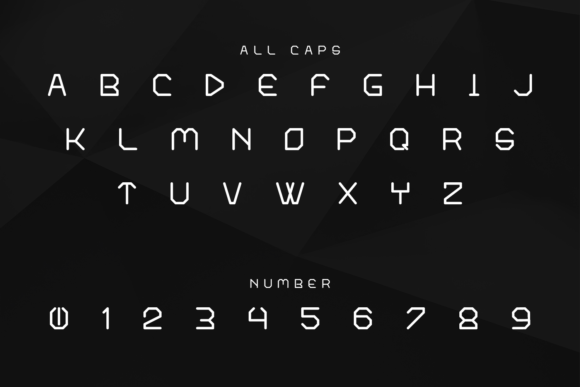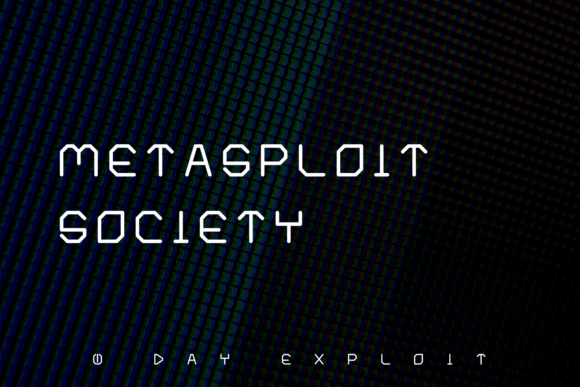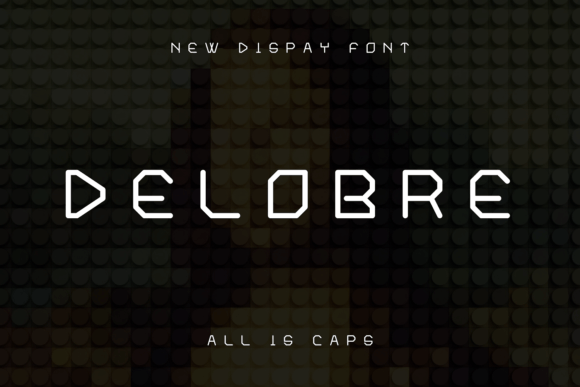
Introduction to Delobre Font
Delobre is a cool and unique display font.
Key Features of Delobre Font
Why Choose Delobre Font?
Delobre Font offers exceptional quality and versatility, making it a valuable addition to your design toolkit. Whether you’re creating for personal projects or commercial use, Delobre Font delivers professional results.